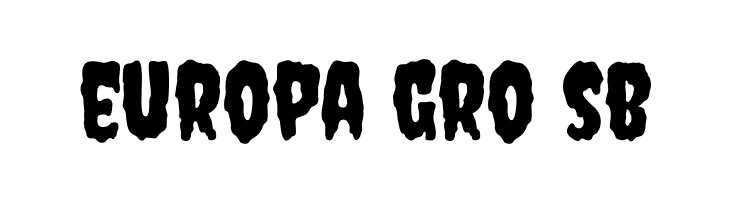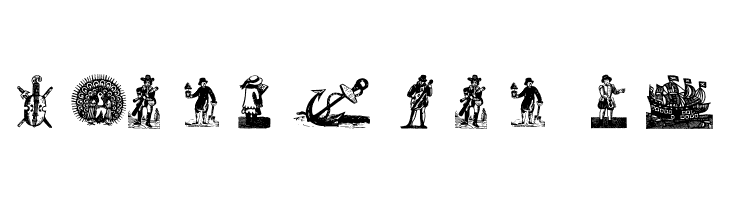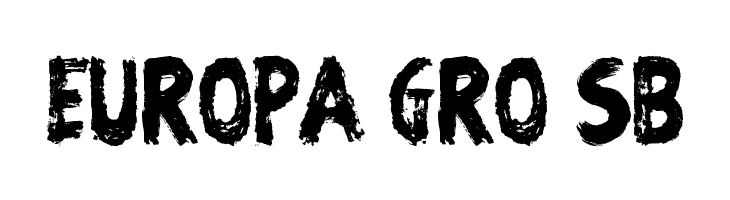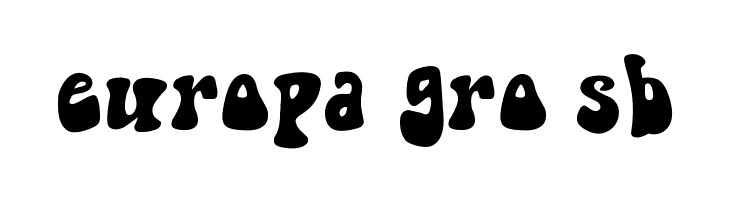
A playful, romantic font with uppercase letters inside heart shapes.
A spooky, playful font with jagged, uneven letters ideal for Halloween themes.
A bold, shadowed font with jagged edges, perfect for spooky themes.
Hand-drawn doodle font with holiday and summer-themed icons.
A jagged, eerie font with sharp, needle-like edges and a dripping effect.
A bold, distressed font with a grunge, chaotic style.
Hand-drawn, whimsical icon set with casual outlines.
A bold, textured font with a scratched, distressed appearance.
A bold, retro font with a playful, psychedelic style.